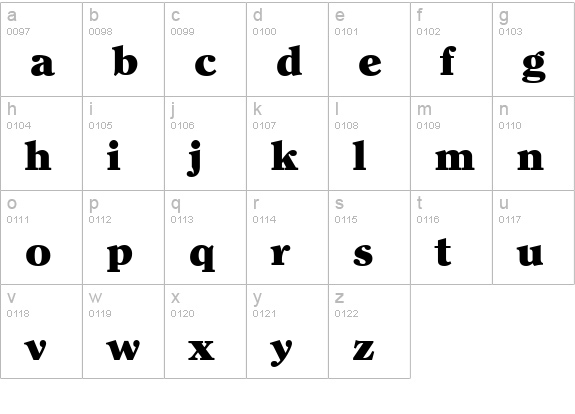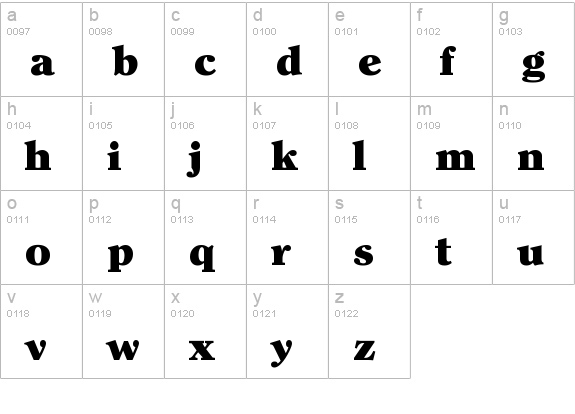
ClearfaceSerial-Heavy-Regular is a heavy, high-impact variant in the ClearfaceSerial typeface family \xE2\x80\x94 well suited to high-impact headlines, posters, and display advertising.
ClearfaceSerial-Heavy-Regular is a bold and impactful font that exudes strength and authority. Its thick strokes and sharp angles command attention and make a powerful statement. This font is perfect for headlines, titles, and any design projects that require a strong and confident look. And the best part is, ClearfaceSerial-Heavy-Regular is available for free download at FontsMarket.com. You can easily access this versatile font and use it in your projects without any cost. Don't miss out on this incredible opportunity to enhance your designs with ClearfaceSerial-Heavy-Regular - download it now and make a bold statement with your typography.